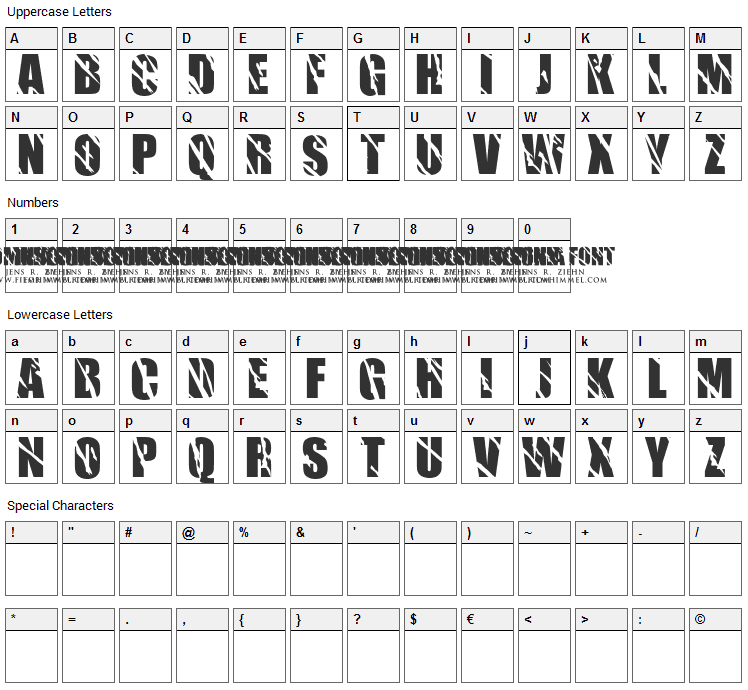
Insomnia Font
Font Name:Insomnia
Developer:Jens R. Ziehn
Category:Fancy > Horror
Jens Ziehn (Filmhimmel, aka Jay R. Zay or JRZ) designed fonts on the theme of films including Insomnia. Filmhimmel closed its web doors in 2007. The website of Jens R. Ziehn seems to not exist anymore either.
Insomnia font contains 52 defined characters and 52 unique glyphs.